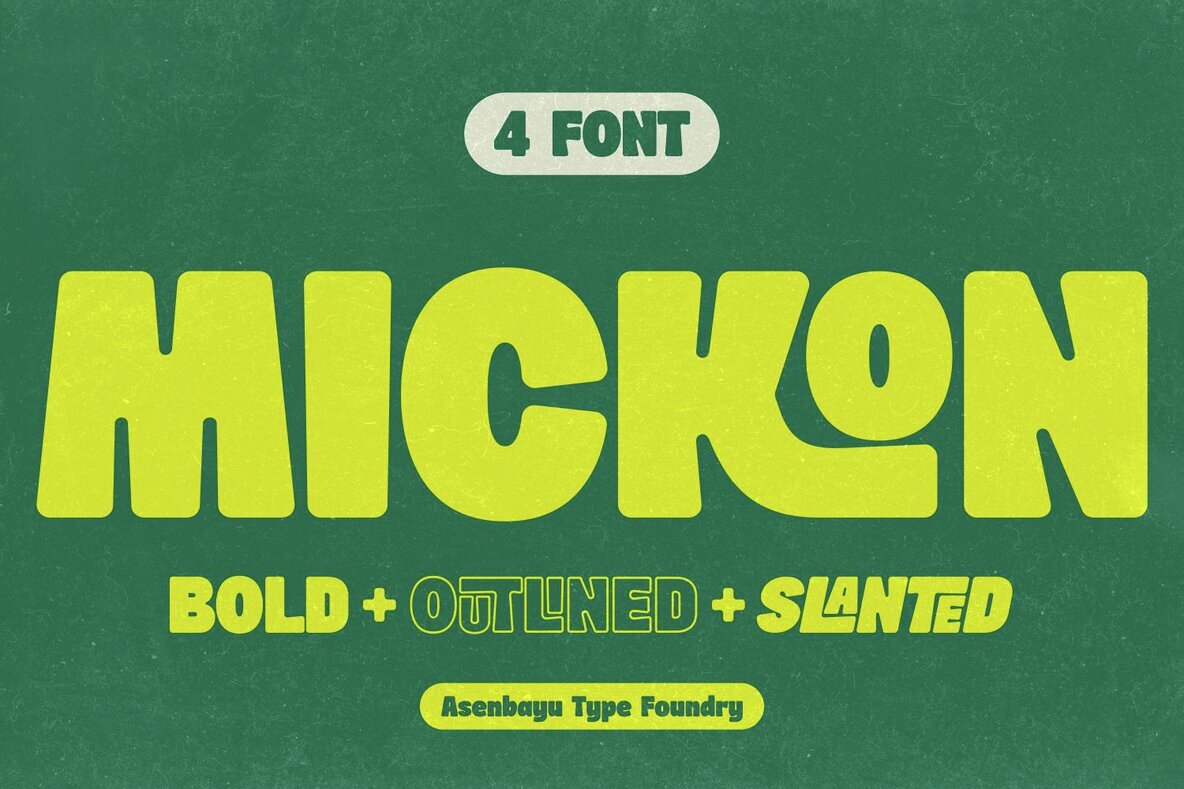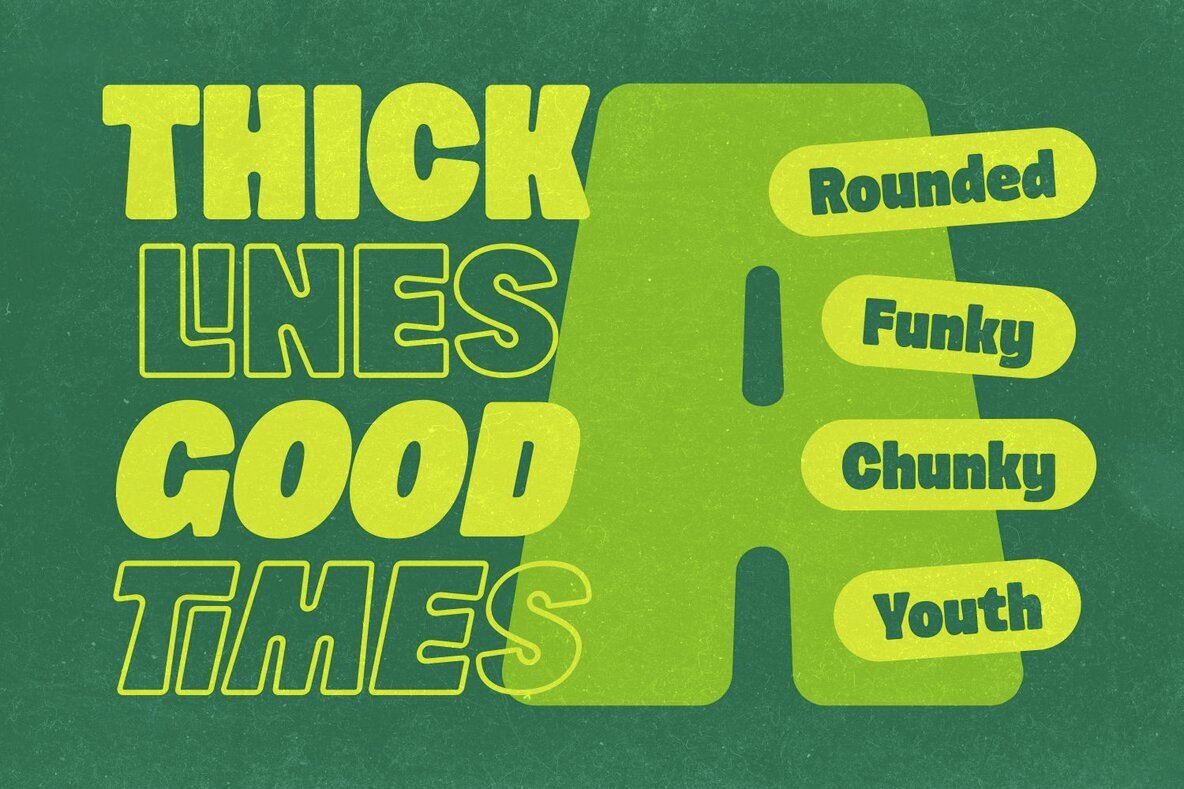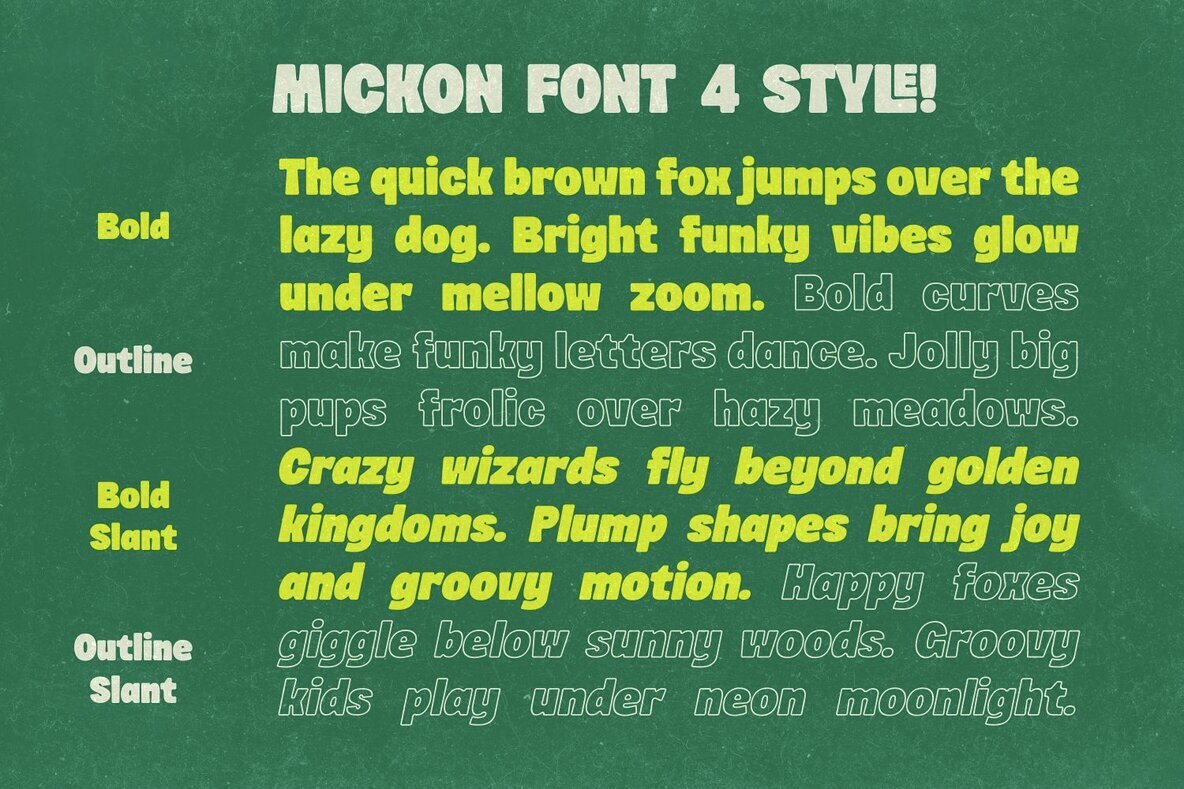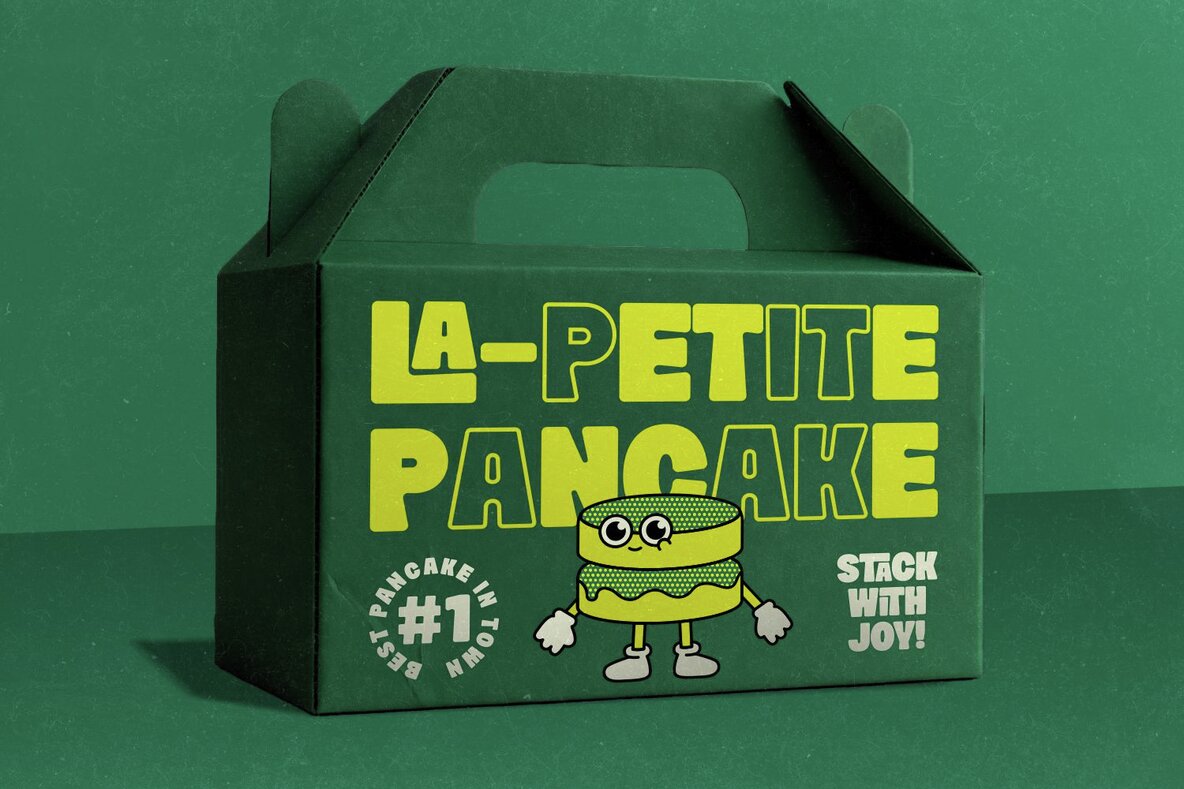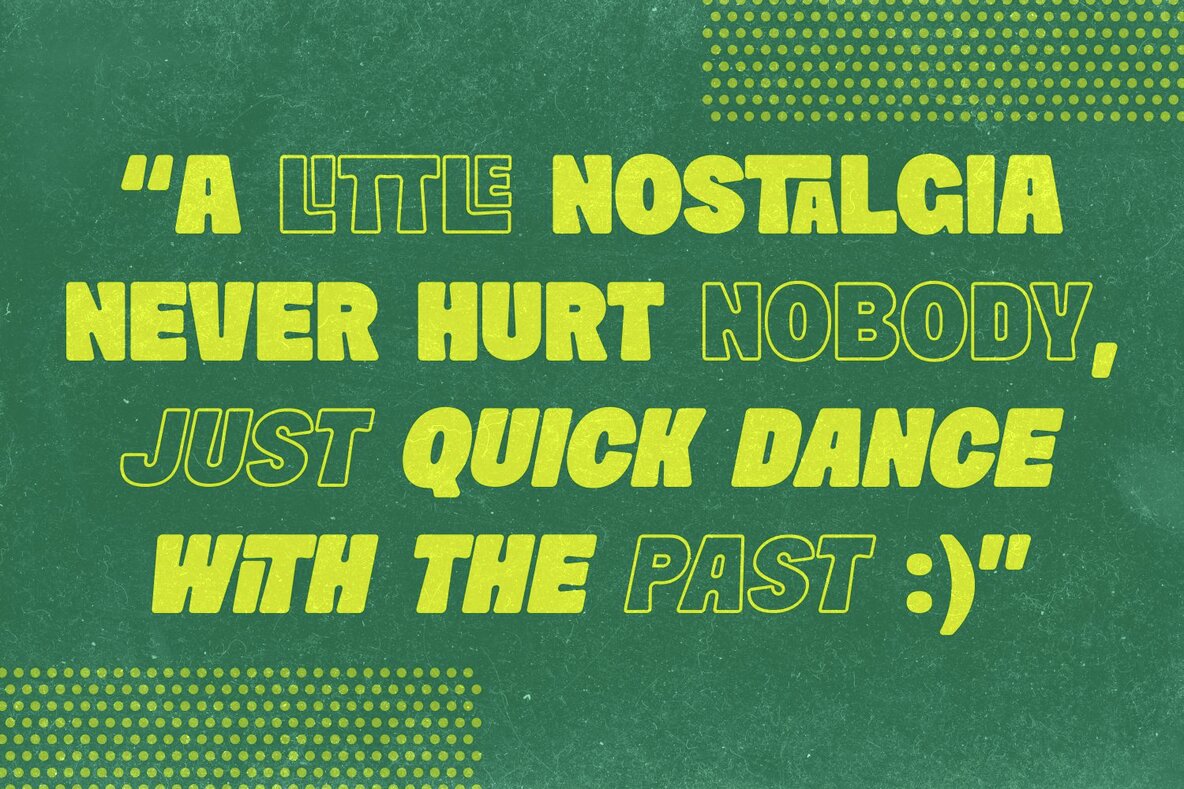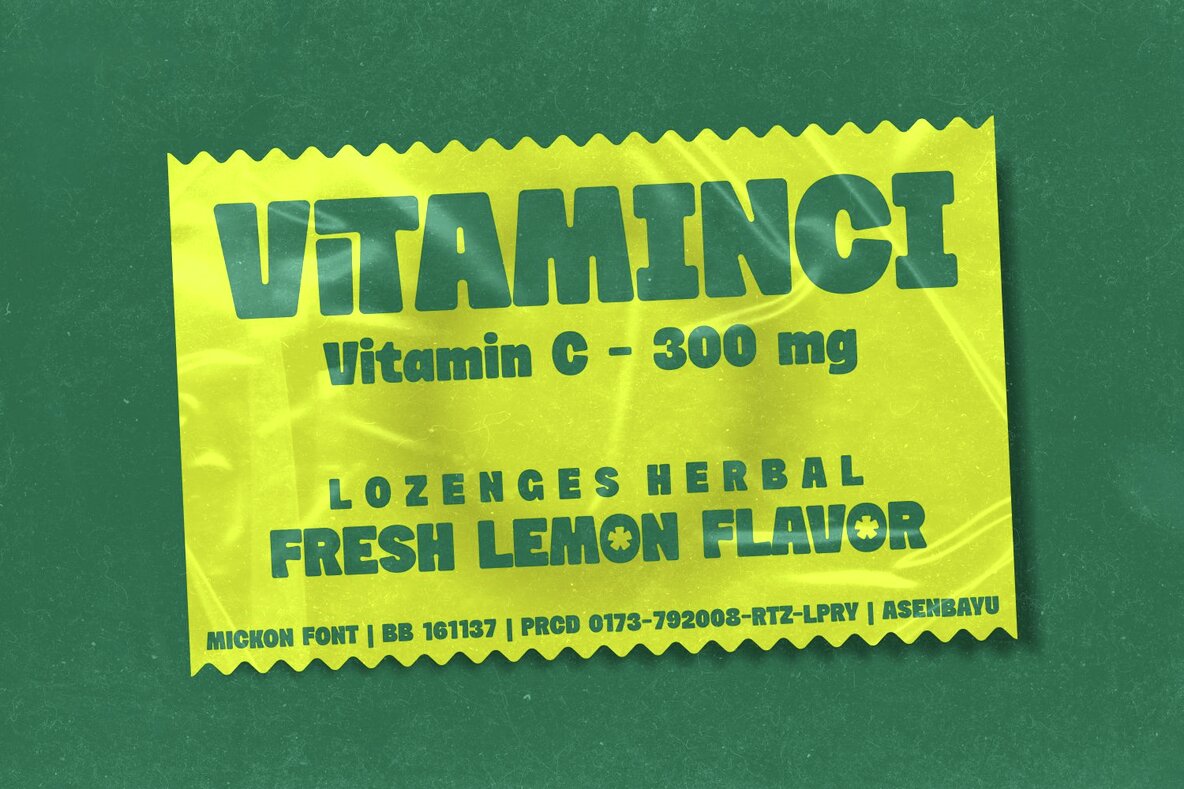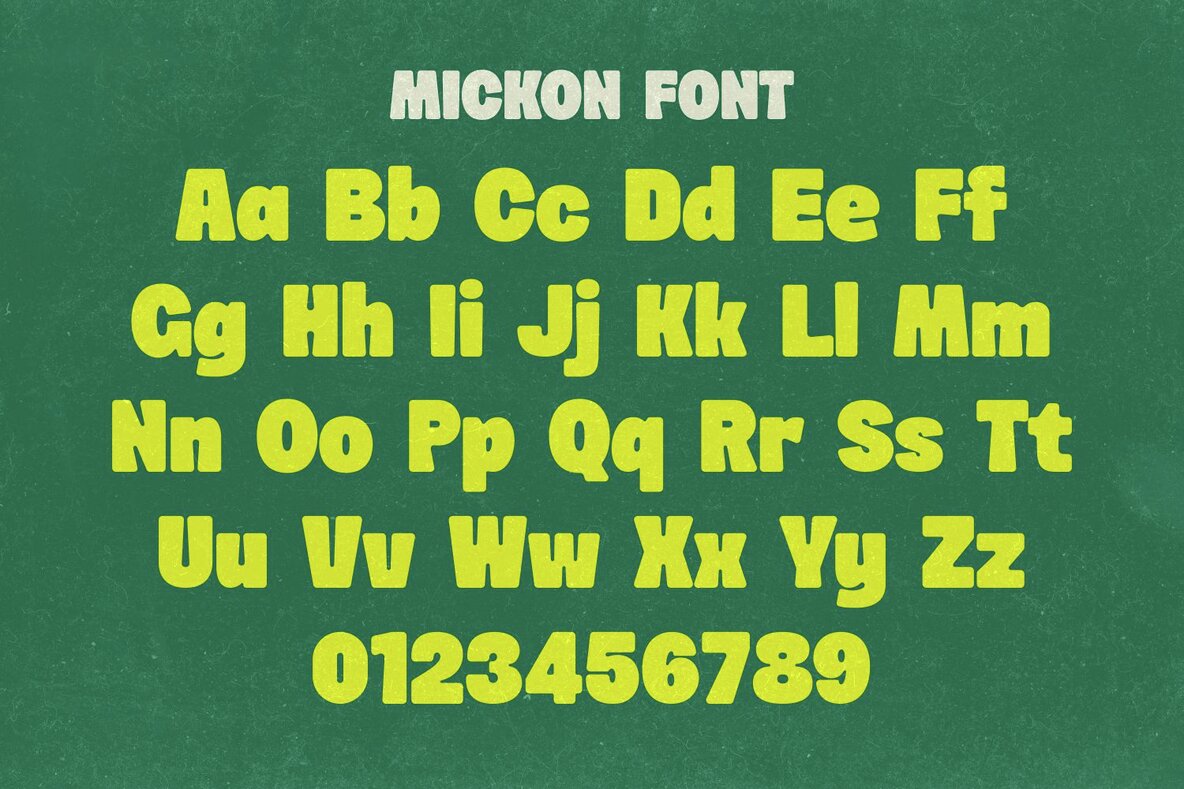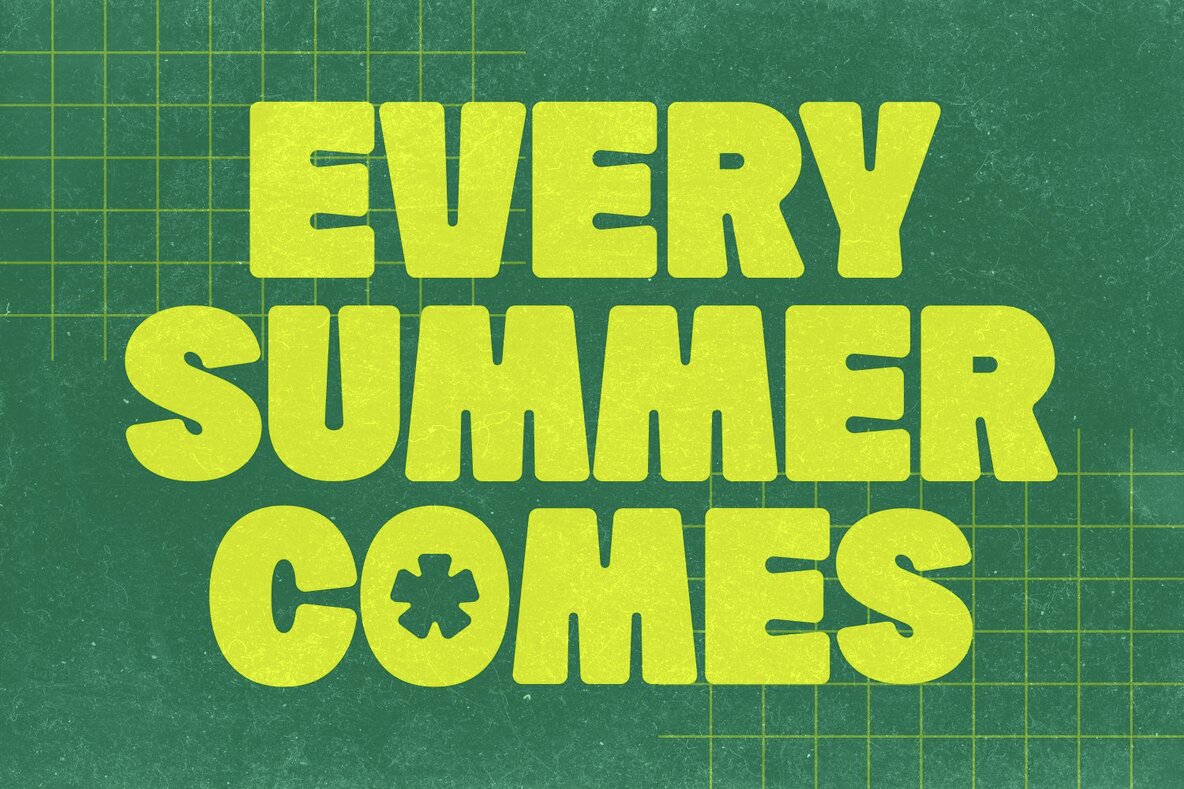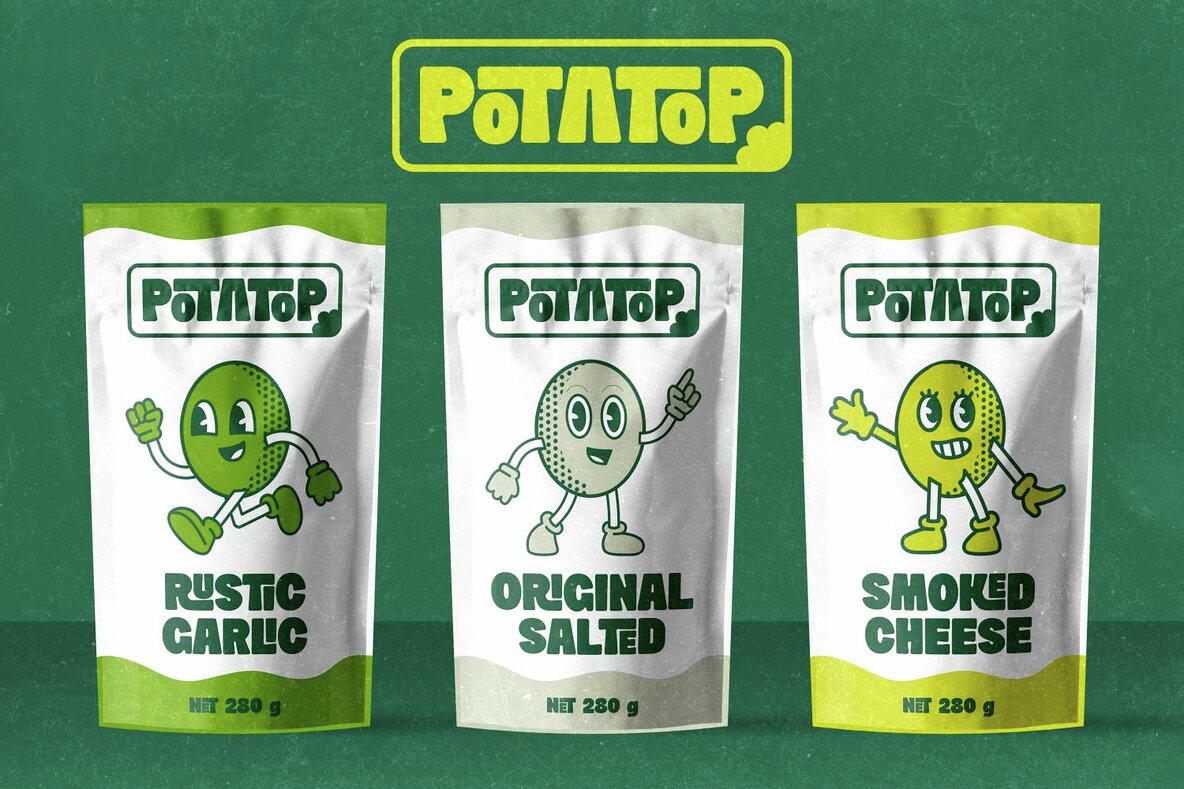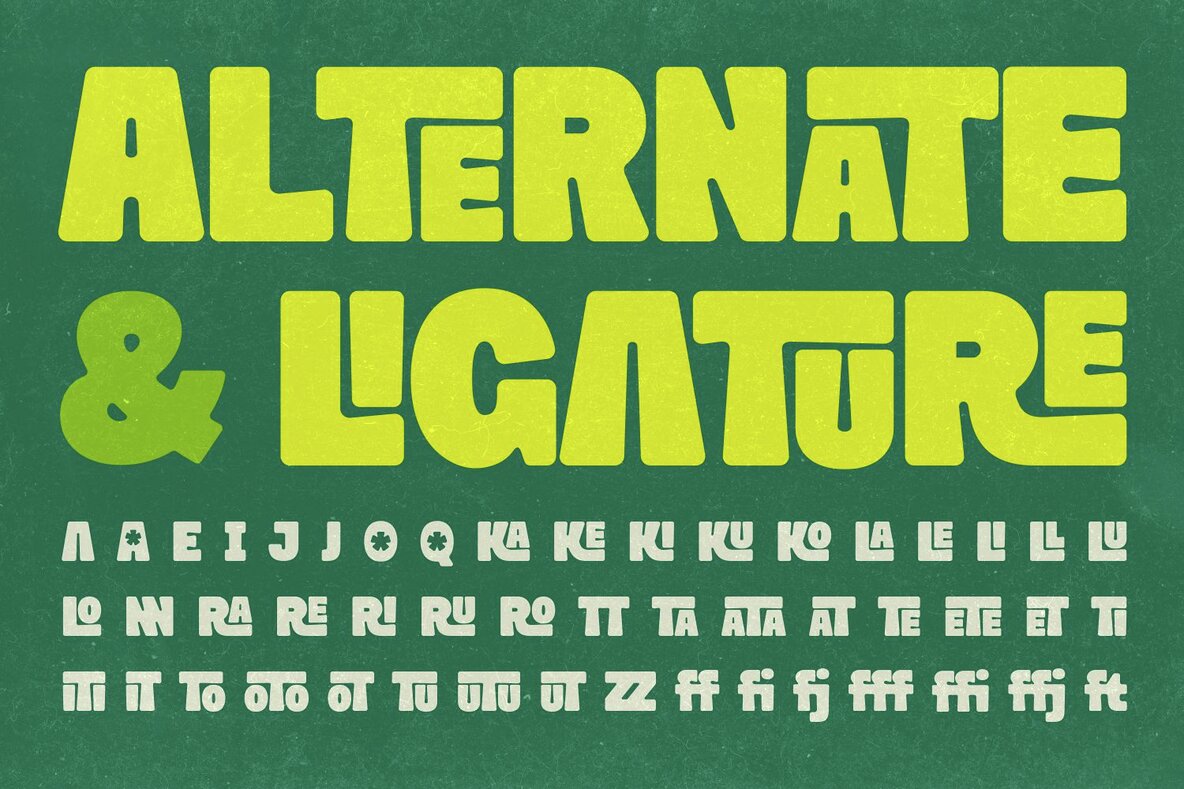
Mickon Font
Mickon encapsulates the essence of retro design with its bold, rounded forms that evoke a youthful nostalgia. The plump shapes and smooth corners forge a cheerful visual experience, imbuing each word with a friendly and approachable aura. Designed to make a statement, Mickon is ideal for posters, logos, branding projects, and bold headlines needing a distinct touch of warmth and character. The design of Mickon exudes confidence, merging softness with personality.Mickon: Nostalgic Retro Display Font